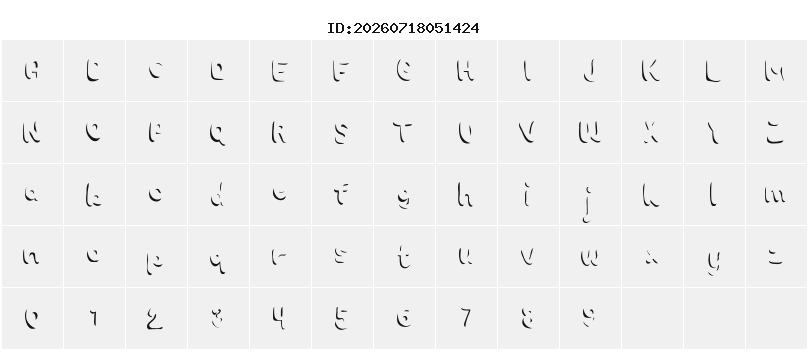
• Font Name: Choko Shadow
• Designer: MÂns Greb‰ck
About Choko Shadow.ttf
Choko Shadow.ttf is a modern, elegant sans-serif font designed for ultimate readability and visual harmony. Perfect for branding, headlines, web design, and print materials.